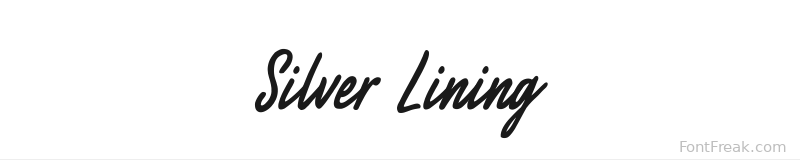
Silver Lining
About Silver Lining
Silver Lining by BLKBK Fonts is a captivating script font that perfectly balances elegance and readability. This font features flowing, cursive strokes that give it a warm, inviting feel, making it ideal for a variety of creative projects. The stroke weight is consistent, with a subtle contrast that adds depth to each character, while the generous spacing ensures legibility, even at smaller sizes. The decorative elements within the font, such as the graceful curves and playful flourishes, elevate its visual appeal, making it a standout choice for designers.
This font is exceptionally versatile, with several use cases that highlight its charm. It is perfect for wedding invitations, where its romantic style can set the tone for an elegant celebration. Additionally, Silver Lining works wonderfully for branding small businesses, such as cafes or boutiques, providing a personal touch to menus and signage. Graphic designers can utilize this font for social media graphics and promotional materials, ensuring that their messages resonate with audiences. Moreover, it is an excellent choice for crafting heartfelt greeting cards or personalized stationery, enhancing the emotional connection with recipients.
What sets the Silver Lining font apart is its ability to combine elegance with approachability. This font not only enhances the aesthetics of any project but also conveys a sense of warmth and personality. With the Silver Lining font free download, you can easily incorporate this beautiful typeface into your next design endeavor and make a lasting impression.